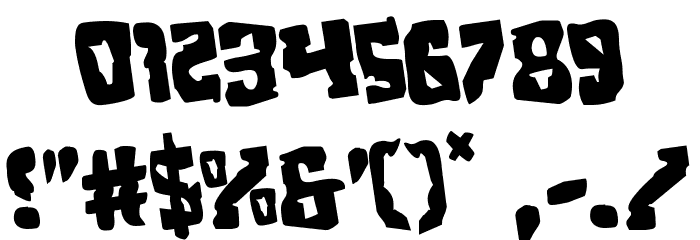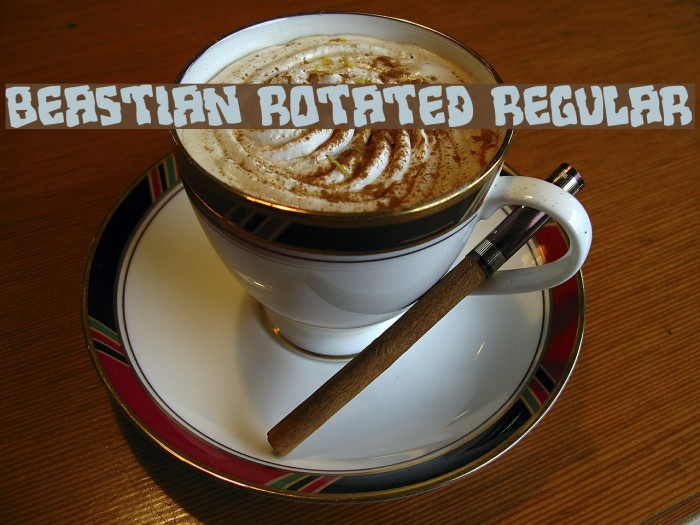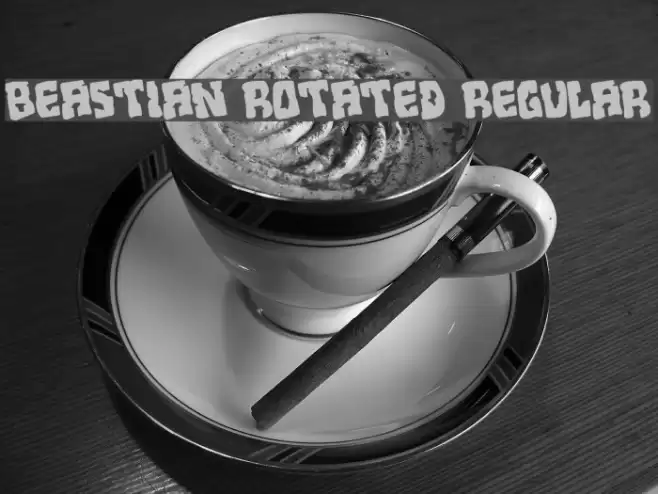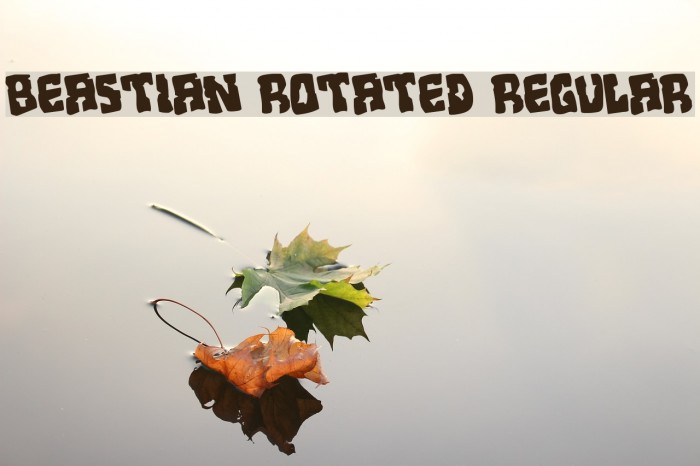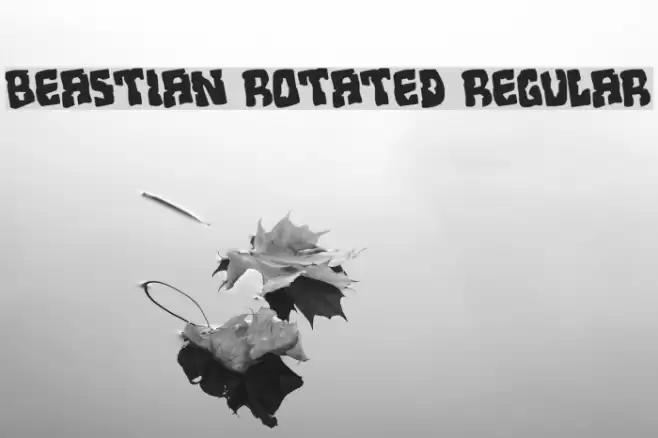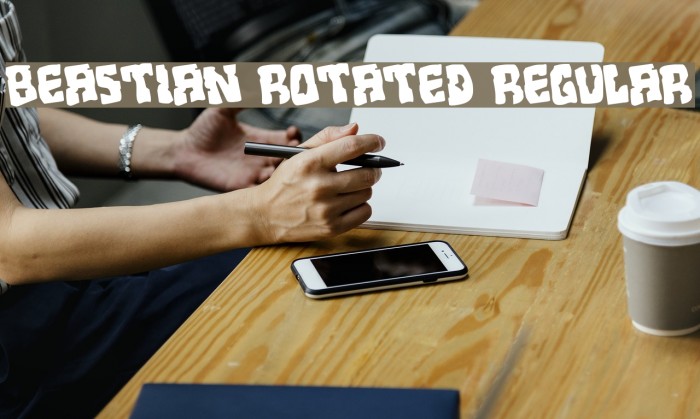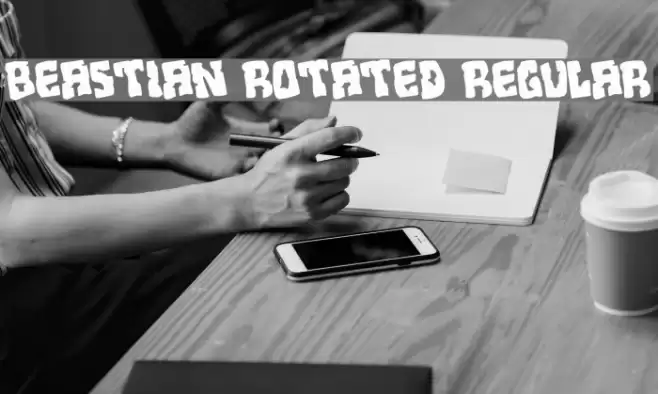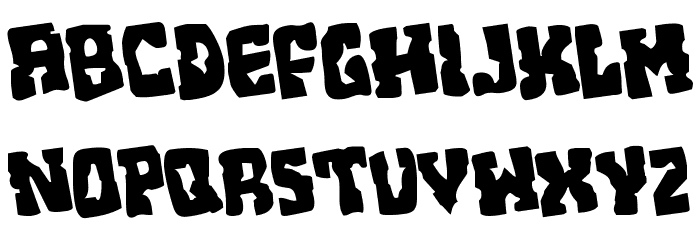
Beastian Rotated Regular Font
Beastian Rotated Regular Description
This font features a bold and playful design with a unique, rotated appearance that gives it a dynamic and energetic feel. The characters are heavily stylized with irregular edges and a chunky, robust form that makes them stand out. The uppercase and lowercase letters maintain a consistent weight, while the numbers and special characters follow the same bold and quirky style. This font is ideal for projects that require a fun and eye-catching aesthetic, such as posters, event flyers, or branding for creative industries.
| Proposed Projects | Ideal for posters, event flyers, and creative branding. |